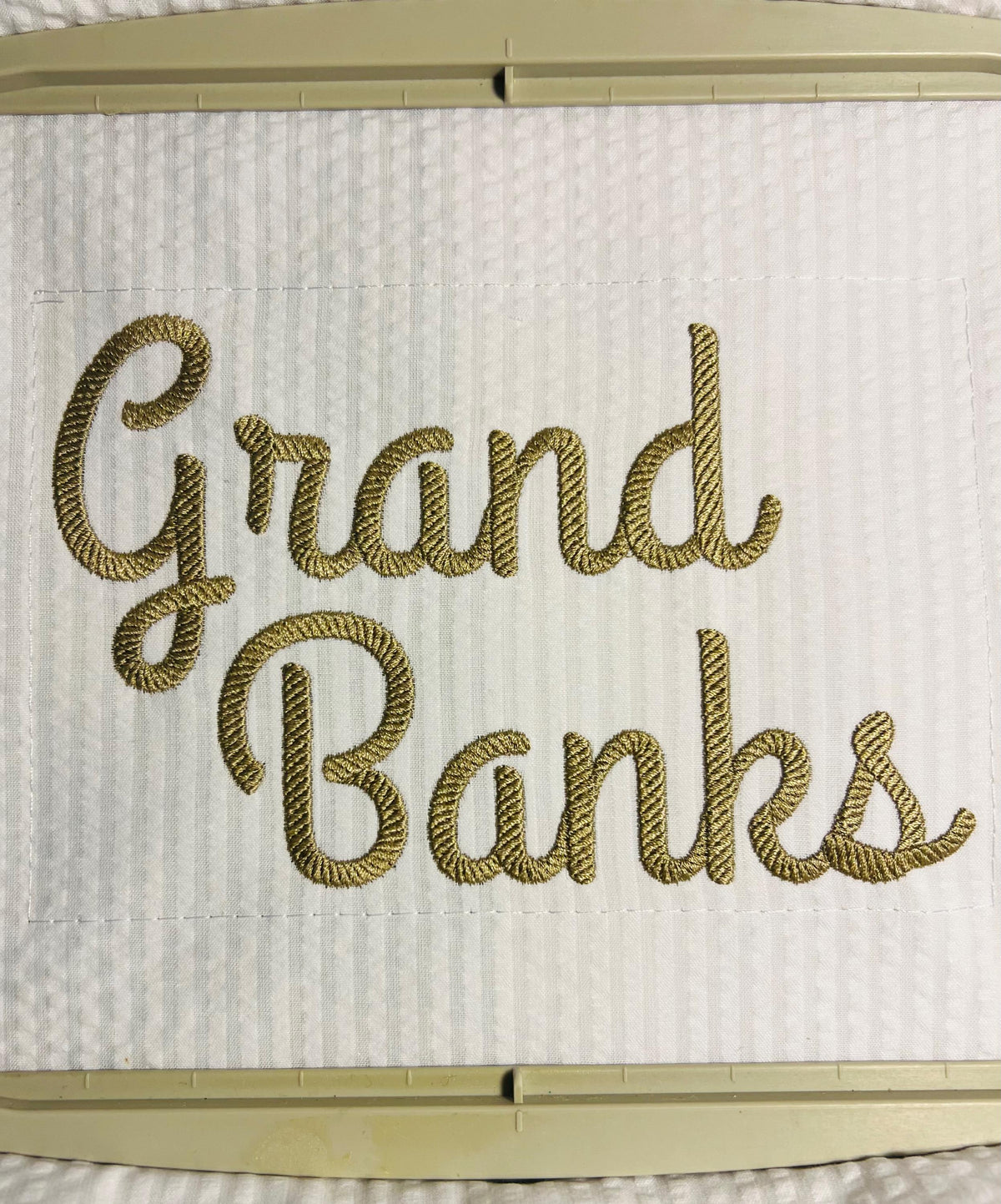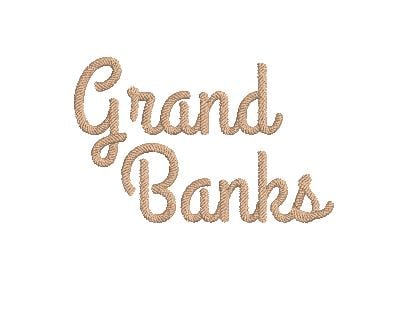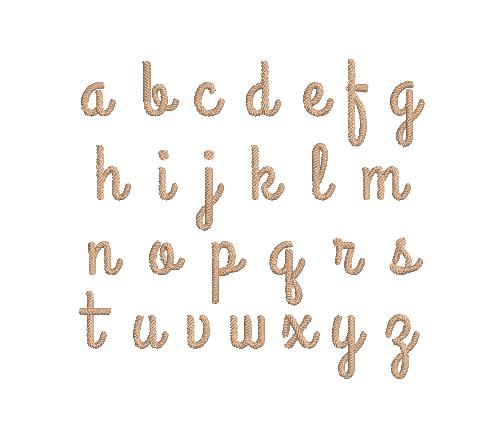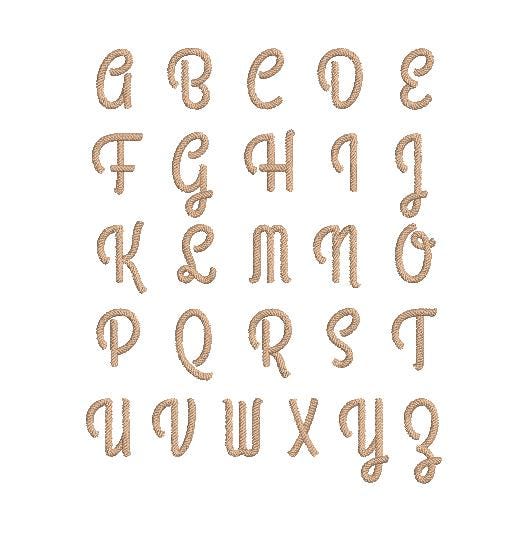
This is a DIGITAL instant download only of a Western or Nautical style font with a fun rope like fill stitch for machine embroidery. Offered in 3 sizes, 8 machine formats and BX mapped files. Perfect for every little cowboy, cowgirl, boating or sailing fan in your life!